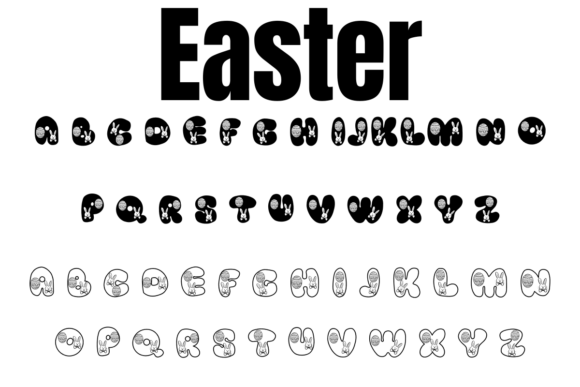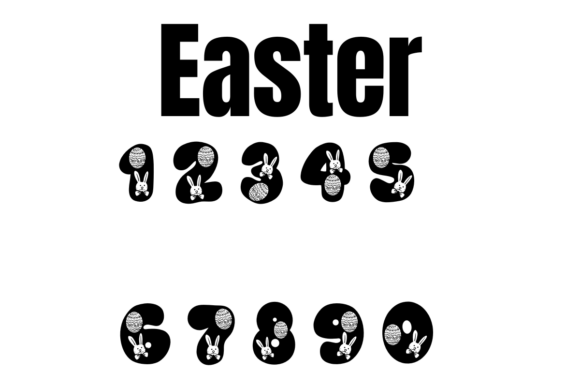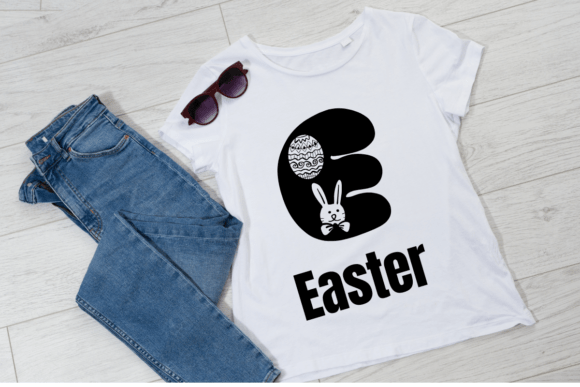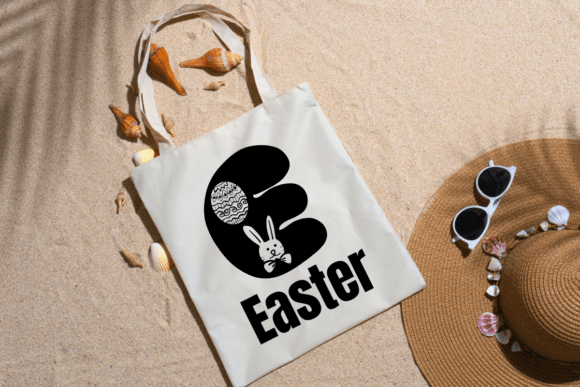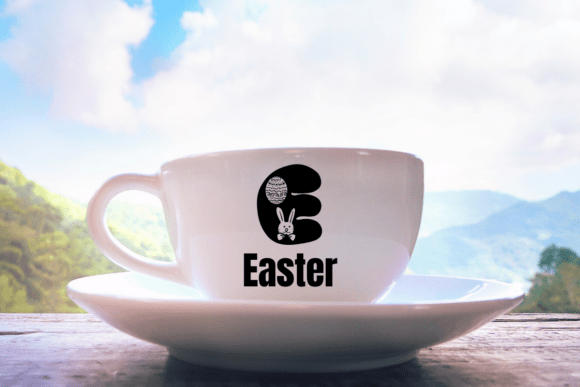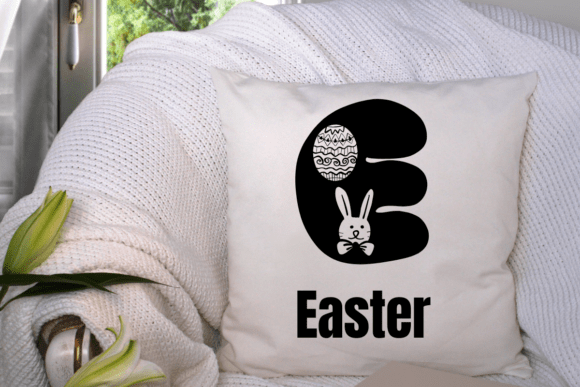
Easter Decorative Font: A Festive Typeface to Celebrate the Joy of Spring
As the Easter holiday approaches, designers and crafters are on the lookout for the perfect font to add a touch of festive flair to their projects. Look no further than the Easter Decorative font, a charming and illustrative typeface designed to capture the essence of the holiday. In this article, we’ll explore the features and benefits of this delightful font, and provide inspiration for using it in your seasonal designs.
Introducing the Easter Decorative Font
The Easter Decorative font is a ultra-bold, rounded typeface that is adorned with charming Easter icons like bunny silhouettes and decorated eggs. Each letter in the font feels like a tiny piece of holiday art, providing a sense of celebration and tradition that is perfect for seasonal marketing and family-focused projects. The font’s playful and whimsical design makes it an excellent choice for a variety of applications, from egg hunt flyers and seasonal retail banners to festive greeting cards and DIY craft templates.
Key Features of the Easter Decorative Font
- Ultra-bold and rounded characters: The Easter Decorative font features thick, rounded characters that are sure to grab attention.
- Easter icons and decorations: The font is adorned with charming Easter icons like bunny silhouettes and decorated eggs, adding a touch of festive flair to your designs.
- Playful and whimsical design: The font’s playful design makes it perfect for family-focused projects and seasonal marketing.
Using the Easter Decorative Font in Your Designs
The Easter Decorative font is incredibly versatile and can be used in a variety of applications, including:
- Egg hunt flyers and posters: Create eye-catching flyers and posters to promote your Easter egg hunt event.
- Seasonal retail banners: Add a touch of festive flair to your in-store banners and displays.
- Festive greeting cards: Create beautiful and unique greeting cards for friends and family.
- DIY craft templates: Use the font to create custom craft templates for Easter-themed crafts and activities.
- Bakery menus and packaging: Add a touch of Easter cheer to your bakery menus and packaging.
- Children’s activity sheets: Create fun and engaging activity sheets for kids, complete with Easter-themed illustrations and games.
Tips for Pairing the Easter Decorative Font with Other Design Elements
To get the most out of the Easter Decorative font, try pairing it with other design elements that complement its playful and festive design. Here are a few tips:
- Soft pastel colors: Use a palette of soft pastels like mint, lavender, and lemon yellow to enhance the holiday feel.
- Illustrative floral elements: Pair the font with beautiful floral illustrations to create a charming and whimsical design.
- Simple, clean handwriting fonts: Combine the Easter Decorative font with a simple, clean handwriting font for a beautiful and elegant design.
The Easter Decorative font is a delightful and festive typeface that is perfect for designers and crafters looking to add a touch of Easter cheer to their projects. With its ultra-bold and rounded characters, charming Easter icons, and playful design, this font is sure to bring joy and celebration to your designs. Whether you’re designing for a community event or creating a special Easter greeting card, the Easter Decorative font is the ultimate choice for any Easter-themed project.